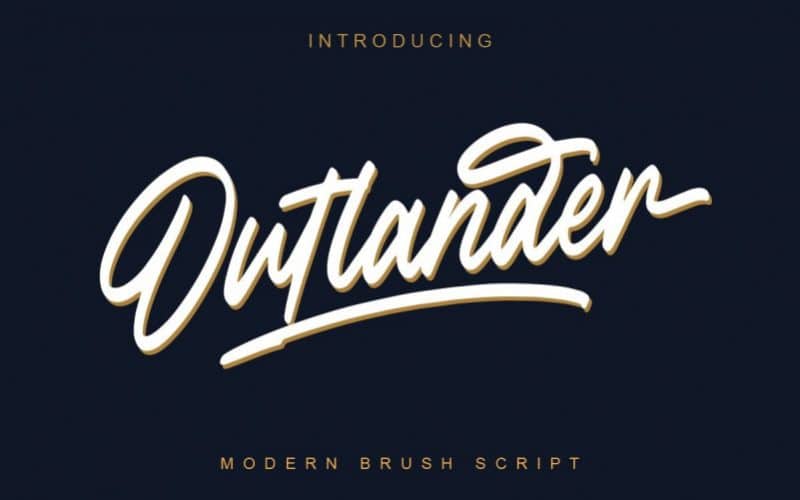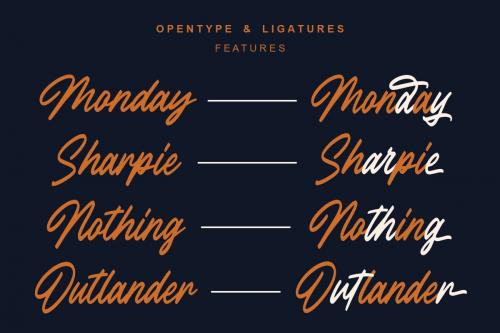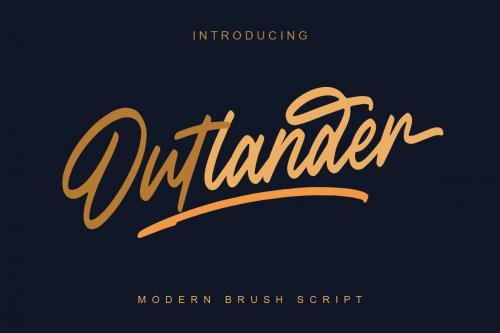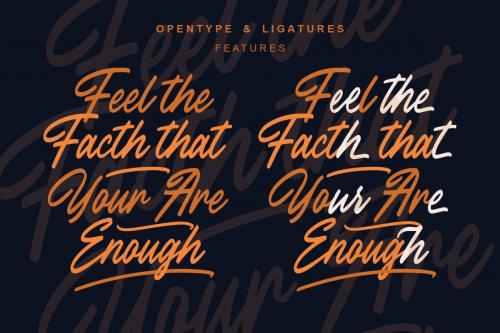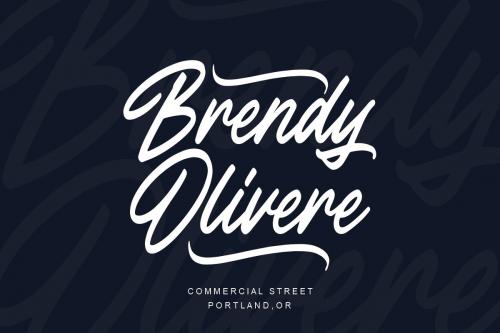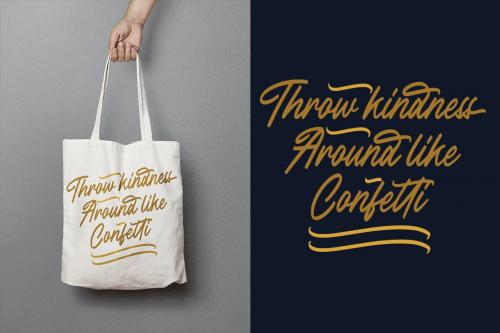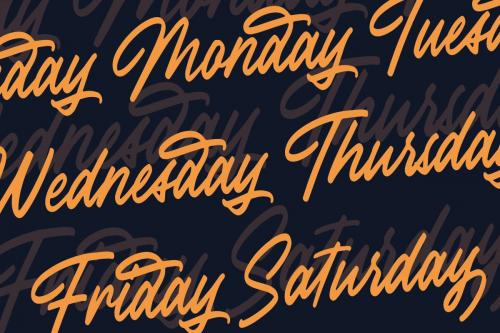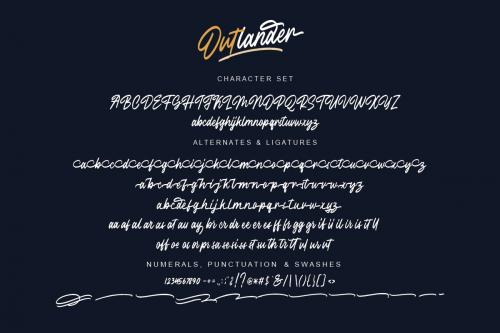
Outlander Brush Font is a type of script brush created using custom pen brushes. there are 2 types of fonts that have a standard model and italic type, so you can use it as a type of logo, badge, packaging, title, poster, shirt / shirt, and others.
Flowing characters are ideal for making interesting messages, to fit your project.